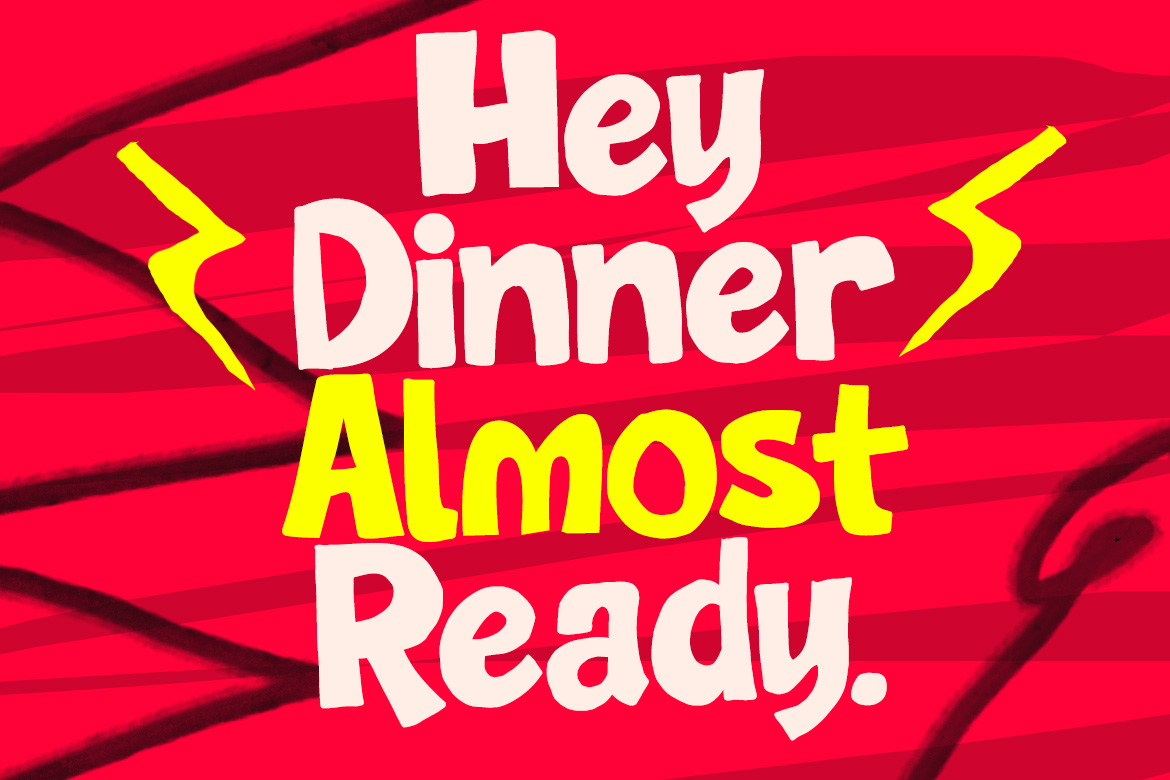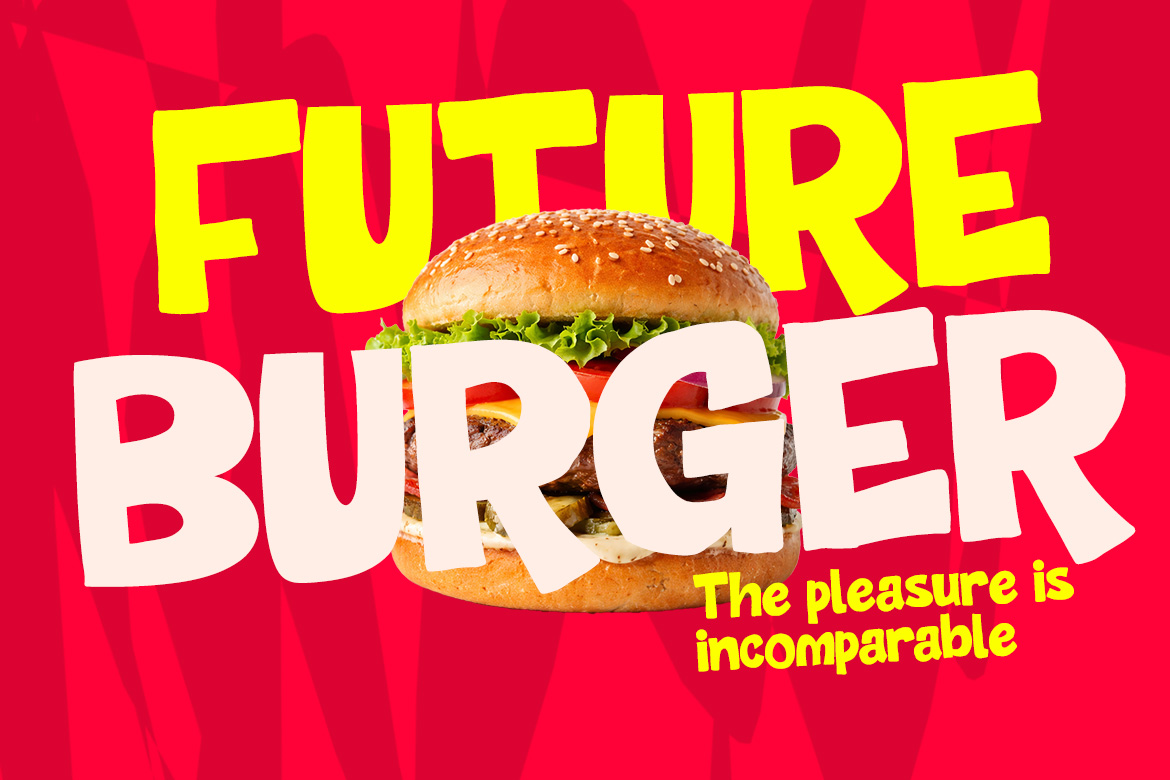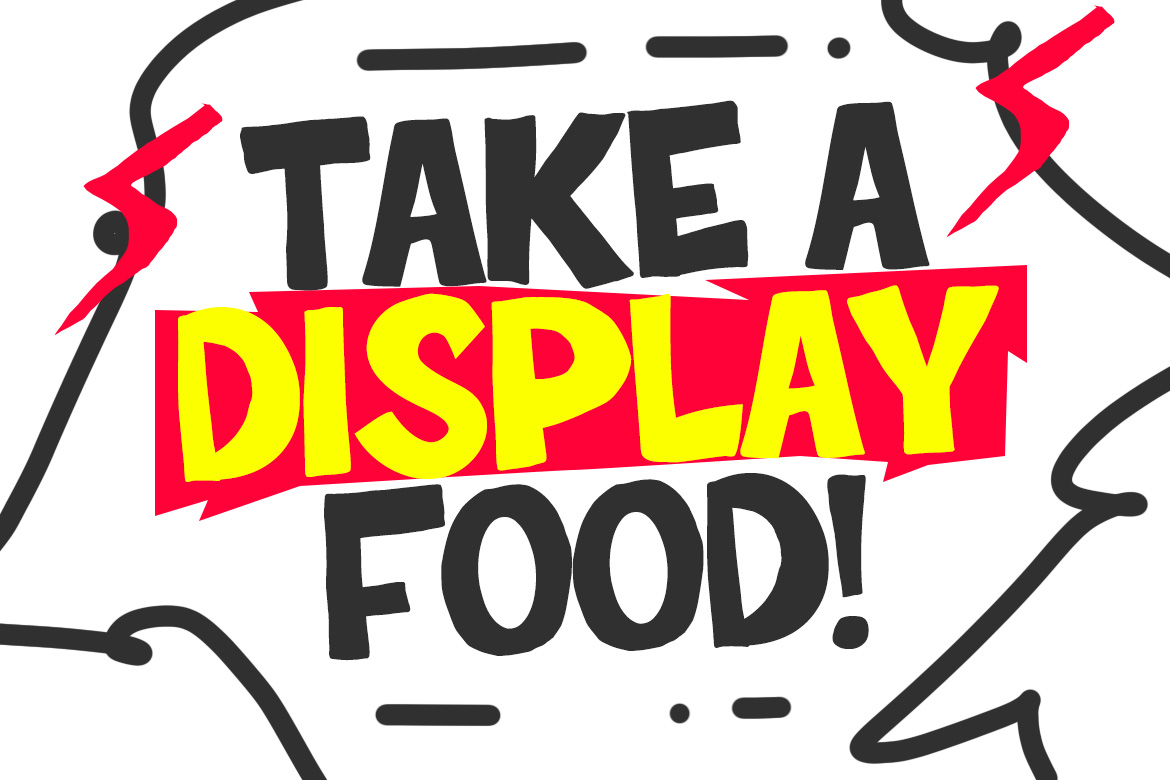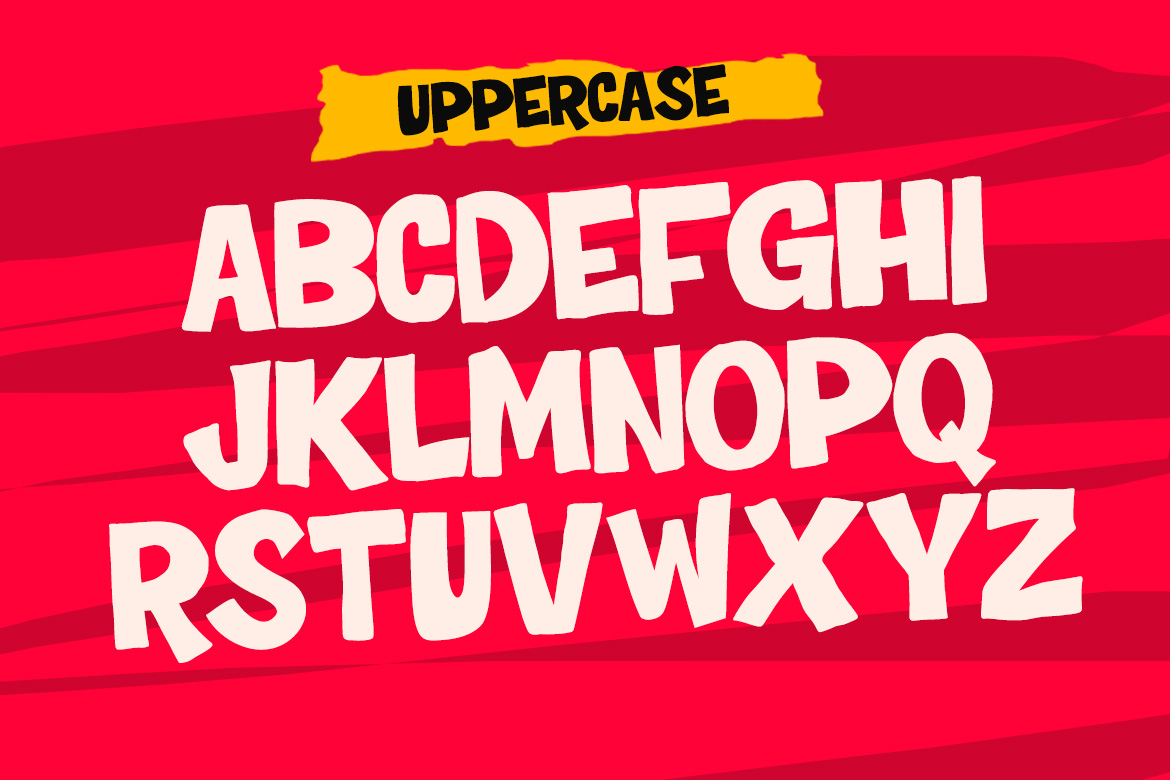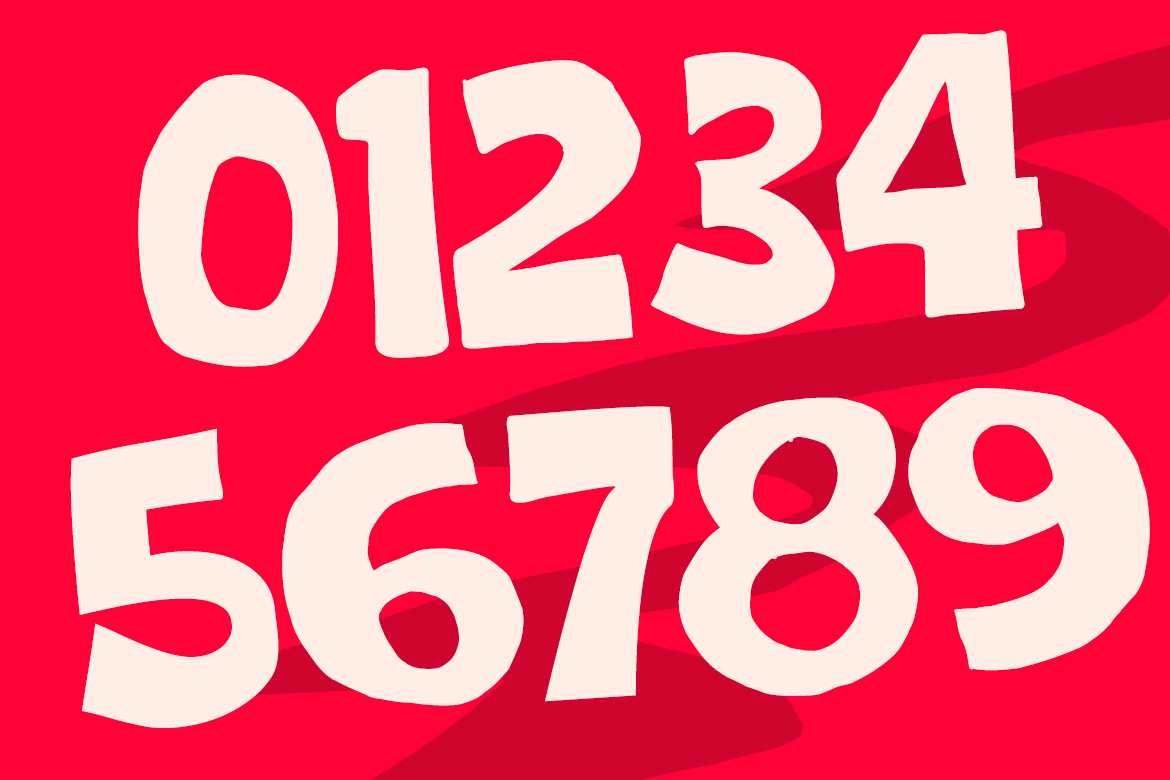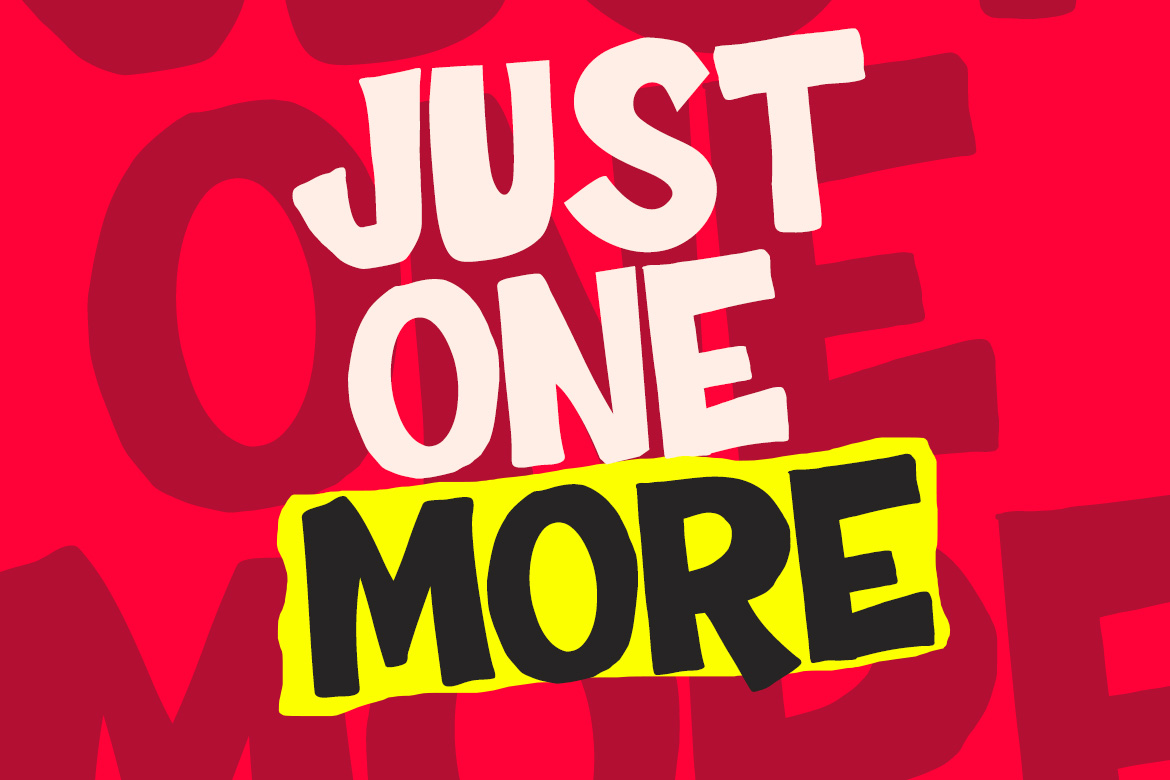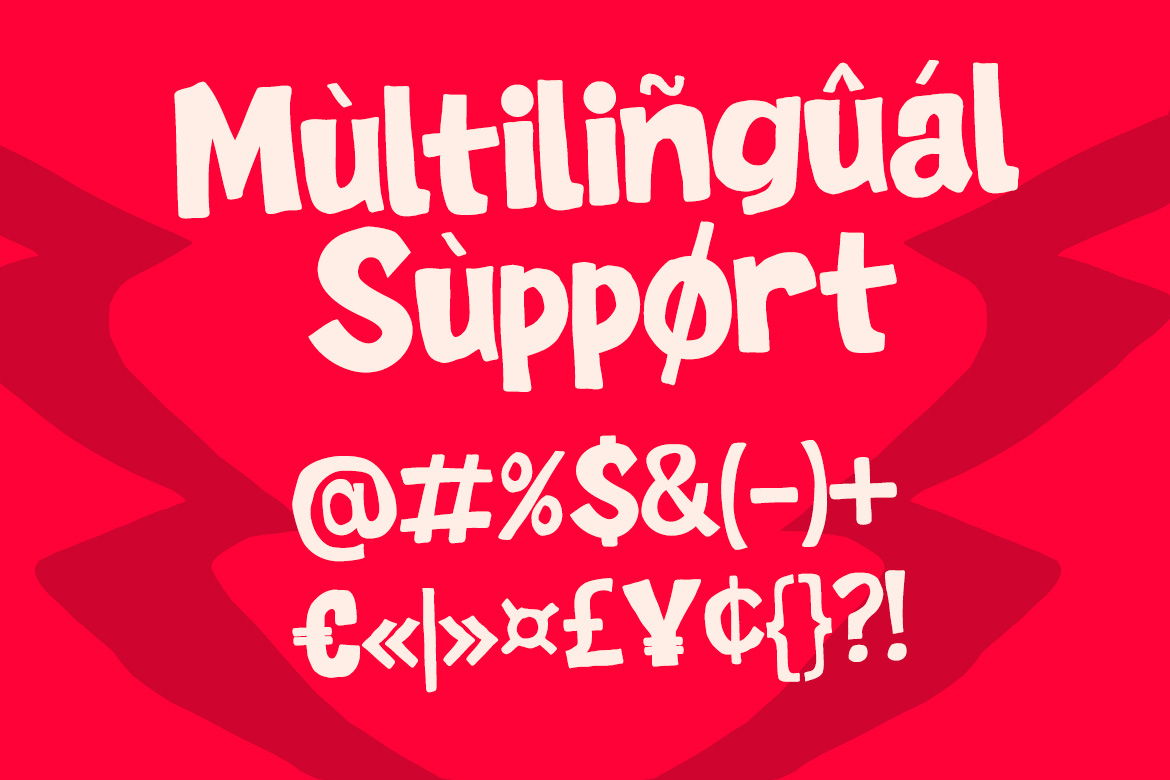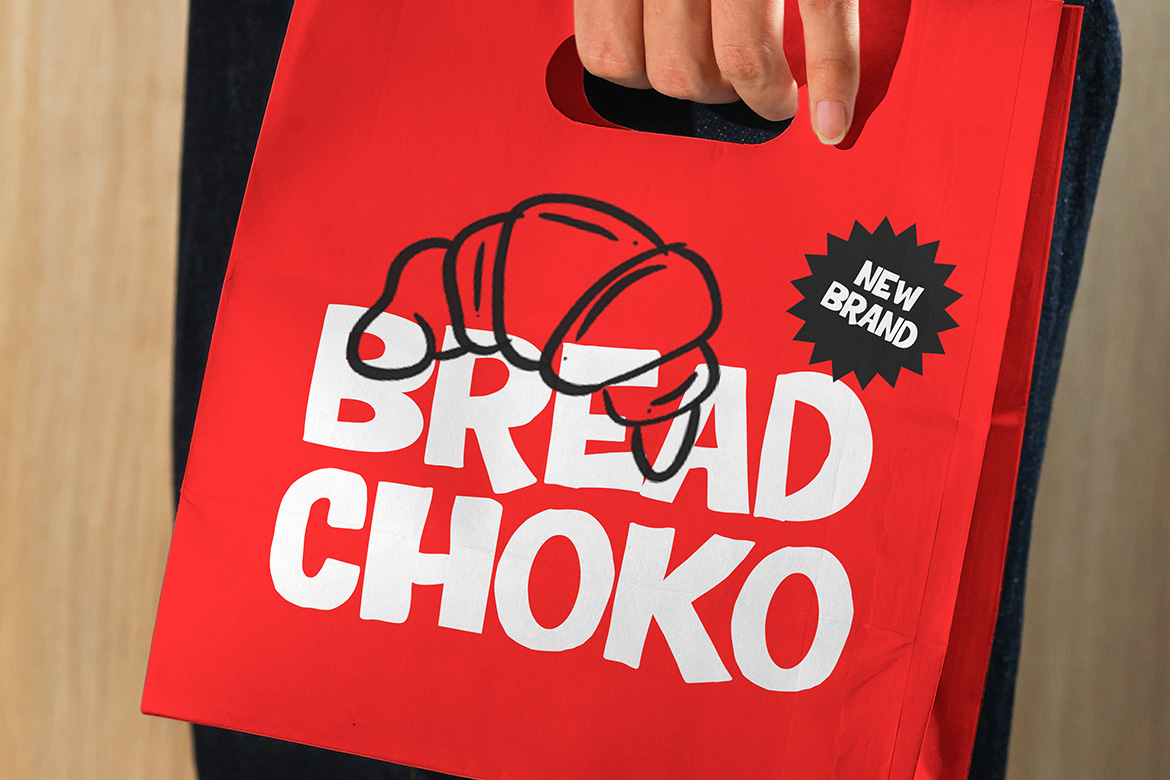
This font features heavy, chunky letterforms with an organic, hand-drawn quality that exudes energy and friendliness. The strokes are thick and consistent, with slightly irregular edges that give it a tactile, artisanal feel. Its bold weight and lack of sharp serifs make it highly legible and impactful for large-scale applications. The playful bounce in the baseline and the varying widths of the characters create a dynamic rhythm, making it an ideal choice for food packaging, restaurant branding, and vibrant social media marketing. It captures a sense of fun and approachability, perfect for designs that need to stand out with a casual yet professional touch.
- Uppercase
- Lowercase
- Numerals
- Punctuation
Perfect for
- Bakery and café branding
- Food and beverage logos
- Restaurant menus and signage
- Coffee shop and donut shop designs
- Food packaging and labels
- Social media food promotions
- Kitchen-themed posters and prints
- Culinary blogs and recipe graphics